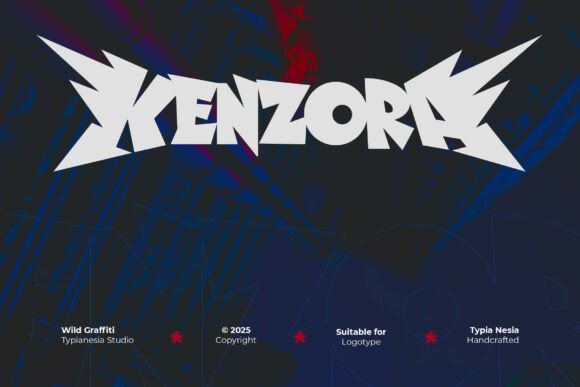
Kenzora: A Wild Bold Graffiti Font for Handmade Creators
It started with a candle label — one I’d sketched on scrap paper while waiting for wax to cool. I wanted something that felt like a spark: energetic, unapologetic, and full of personality. Not sleek minimalism, not delicate script — but something with grit, movement, and just enough superhero swagger to make “Midnight Lavender” sound like a secret mission. That’s when I opened Kenzora.
Kenzora is a modern graffiti display font built for impact. It’s not subtle — and it’s not meant to be. Think bold strokes, dynamic angles, intentional roughness, and that unmistakable hand-painted energy you’d see on a comic book cover or a fantasy game logo. But here’s what surprised me: despite its wild character, Kenzora holds up beautifully on real handmade goods. It doesn’t get lost in print, doesn’t blur at small sizes on stickers, and cuts cleanly on my Cricut when I convert it to outlines.
I tested it first on kraft paper candle labels — pairing Kenzora for the scent name with a clean sans serif (like Montserrat Light) for ingredients and burn instructions. The contrast worked instantly: Kenzora gave the product heart and attitude, while the supporting font kept things legible and grounded. No design degree needed — just good visual rhythm.
What makes Kenzora especially useful for makers is how it lives across formats. On printable wall art? It commands attention in a farmhouse kitchen or a teen’s bedroom. On wedding welcome boards? Paired with a soft script font for names and details, it adds playful heroism without clashing. On seasonal digital downloads — think Halloween party invites or summer sticker sheets — Kenzora brings instant thematic energy. Even on matte-finish tote bags or ceramic mugs, its strong letterforms translate well in screen printing and sublimation previews.
It’s important to note: Kenzora shines brightest as a display font. That means it’s ideal for short, high-impact text — product names, greeting card headlines, boutique tags, sign titles, planner cover words (“Dream Big”, “Create Daily”), and packaging accents. It’s not designed for paragraphs or fine print — and honestly, you wouldn’t want it to be. Its strength is in presence, not prose.
I’ve used it across several real shop materials this season: a set of printable birthday cards (Kenzora for the “Happy Birthday!” headline, paired with a relaxed handwritten font for the inside message), a batch of lavender-scented soap labels (where “Botanical Bloom” in Kenzora balanced the earthy texture of the label stock), and even a digital planner cover — where its bold geometry made the PDF thumbnail pop in my Etsy listing.
Font pairing is where Kenzora really sings. Try it with:
- A simple sans serif (like Poppins or Lato) for balance and clarity — perfect for product tags and ingredient lists.
- A gentle script or handwritten font (like Quicksand or Dancing Script) for warmth and contrast — ideal for wedding stationery or greeting cards.
- A sturdy serif (like Playfair Display) for editorial-style printable art or vintage-inspired signs.
One thing I love about working with Kenzora is how it shifts the emotional tone of a design — almost instantly. A plain “Thank You” tag becomes celebratory. A minimalist mug design gains narrative weight. A digital download preview feels more premium, more intentional. That’s the quiet power of great typography: it doesn’t just say something — it makes people feel something before they even read the words.
It’s also taught me to trust contrast. Kenzora isn’t meant to go solo — it’s meant to anchor a composition, then step back and let simpler fonts carry the rest. That balance is where handmade branding finds its voice: bold where it needs to be, calm where it serves the message.
Whether you're prepping holiday packaging, sketching a new sticker sheet, or finalizing a wedding invitation suite, Kenzora fits right into the flow of making. It’s not fussy. It doesn’t require special software or advanced skills. Just open the file, type your word, adjust the size, and watch your product come alive with personality.
And if you’re wondering whether it’s “too much”? Try it on a test print first — maybe on scrap cardstock or a spare label. See how it sits beside your product photos, your shop colors, your other design elements. More often than not, that wild, bold energy is exactly what your handmade work has been waiting for.